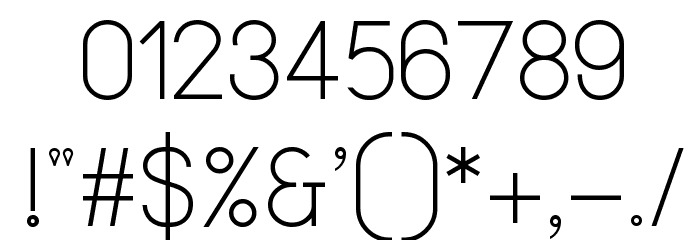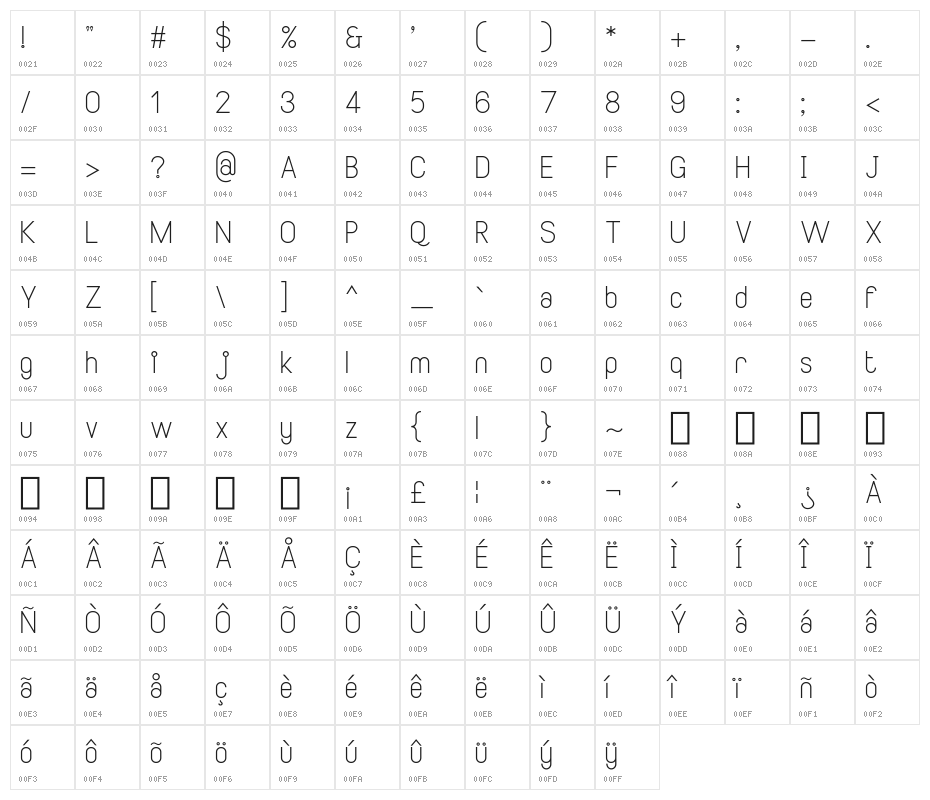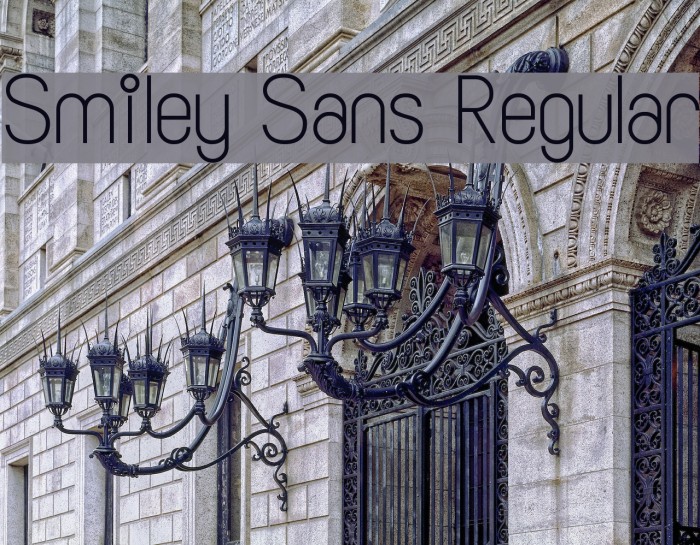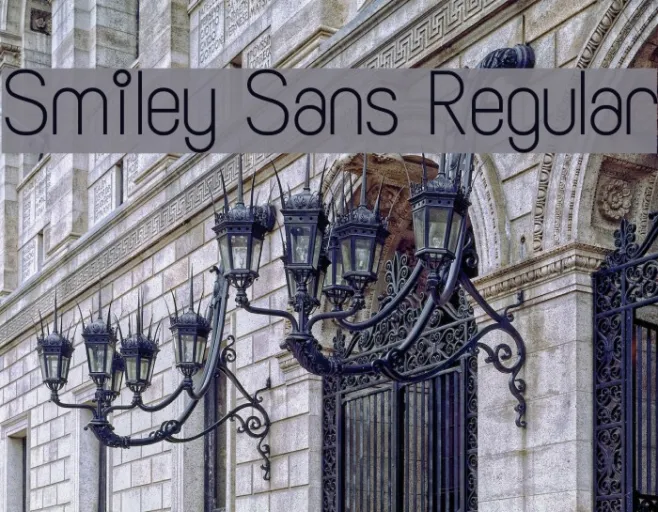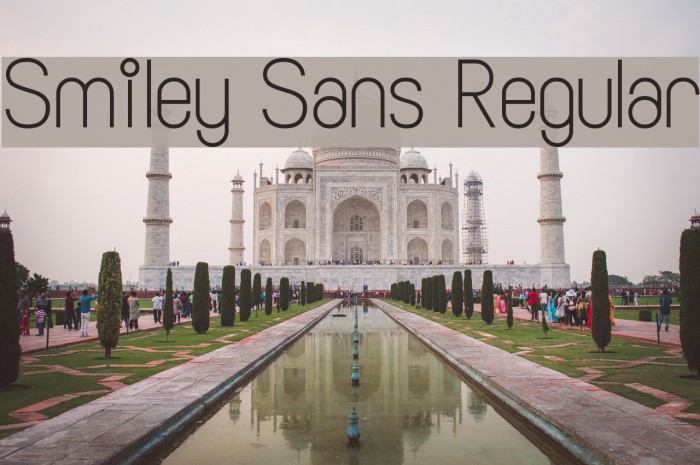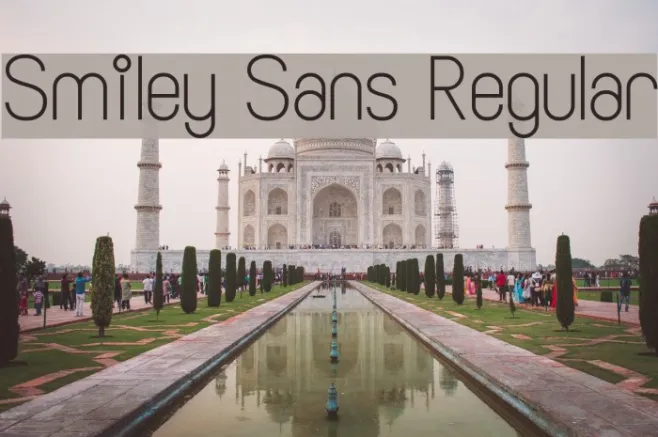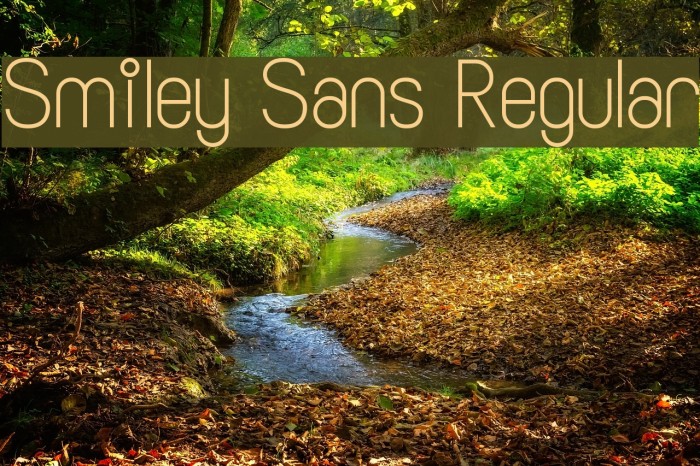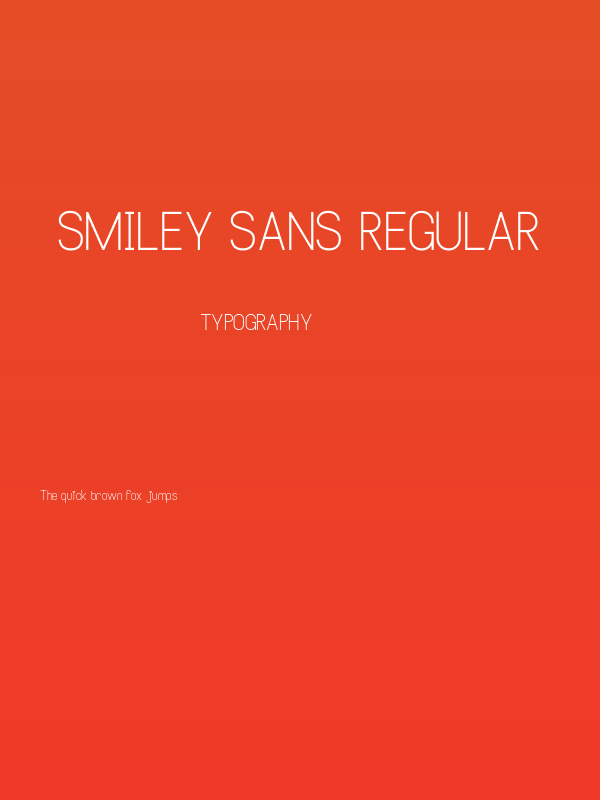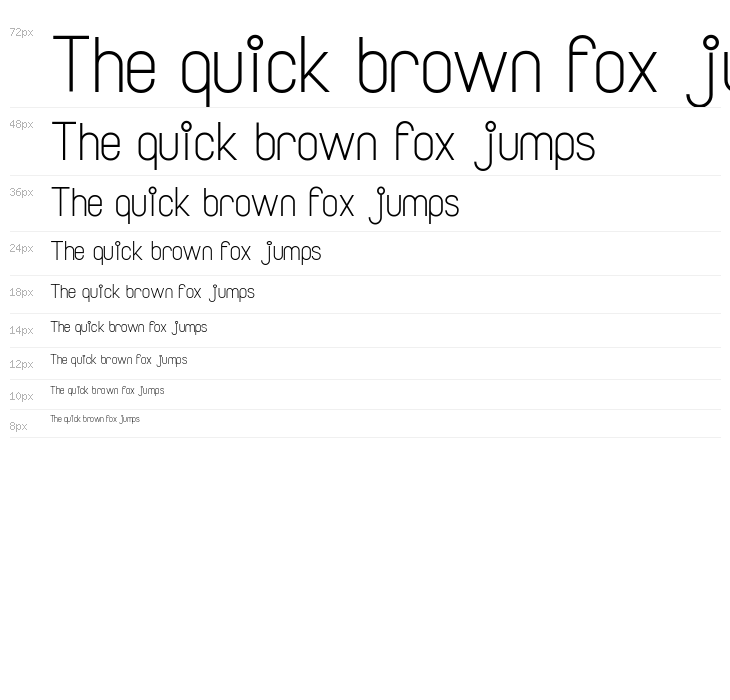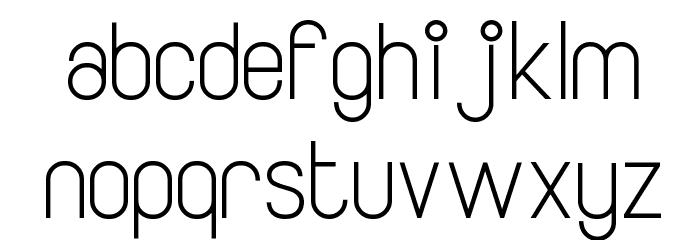
Smiley Sans Regular Font
Smiley Sans Regular Description
This font features a clean and modern sans-serif design with a geometric structure. The characters are evenly spaced, providing a balanced and harmonious appearance. The uppercase letters are tall and slightly narrow, while the lowercase letters maintain a consistent height, contributing to a uniform look. The numerals are clear and easy to read, making them suitable for various applications. Special characters are designed with simplicity and clarity in mind, ensuring they complement the overall aesthetic. The font's minimalistic style makes it versatile for both digital and print media.